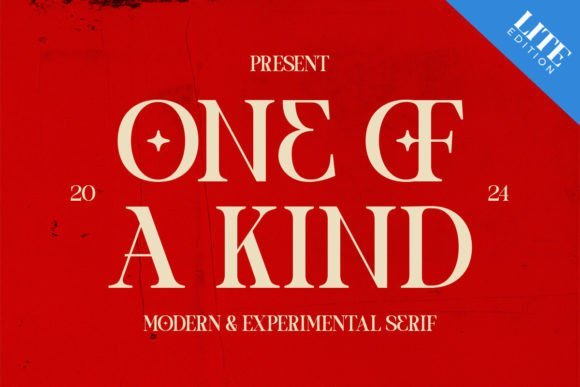
The “One of a Kind” font is a modern experimental serif typeface combining classic serif elegance with unique, contemporary flair. Its letterforms exhibit subtle stylized details — slightly unconventional serif shapes, refined proportions, and a distinctive character that stands out from typical serif fonts. This font is perfect for projects that demand a balance of sophistication and originality. Use it to give your designs a polished yet individual aesthetic.
- The unique serif style adds character and sophistication to any design